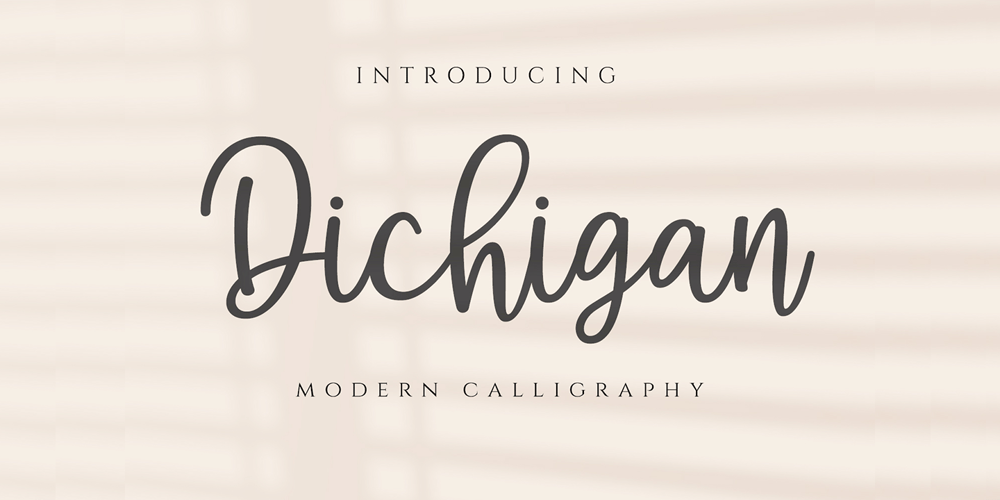
Dichigan Font Family was designed by Anton Cahyono and published by Motokiwo. Dichigan contains 1 styles and family package options. Dichigan is a modern, beauty calligraphy font, and will work perfectly for weddings, food, e-commerce brands, trend blogs, boutiques or any business that wants to appear upscale and sweet.Features: Uppercase & Lowercase Standard Ligatures Contextual Alternates Numerals & Punctuations (OpenType Standard) Multilingual characters PUA Encoded